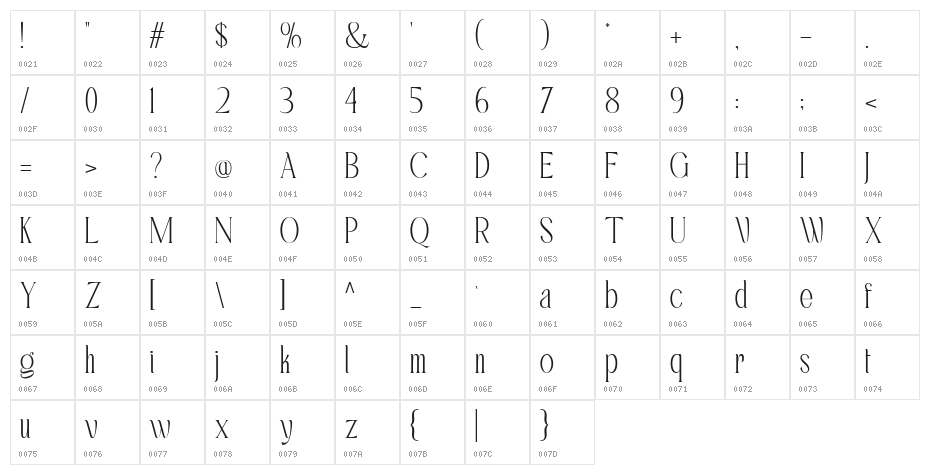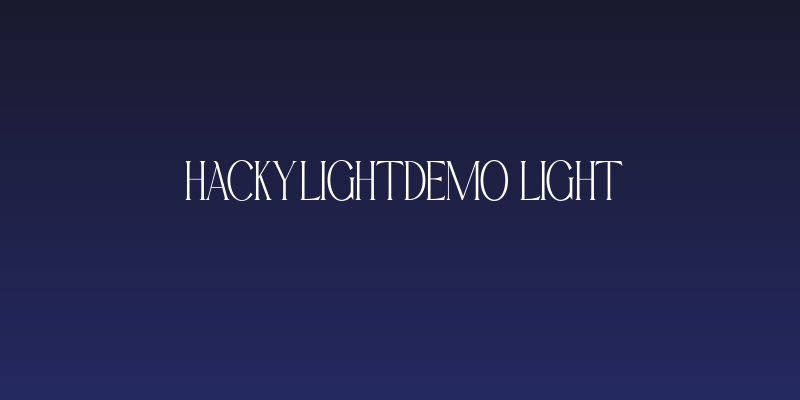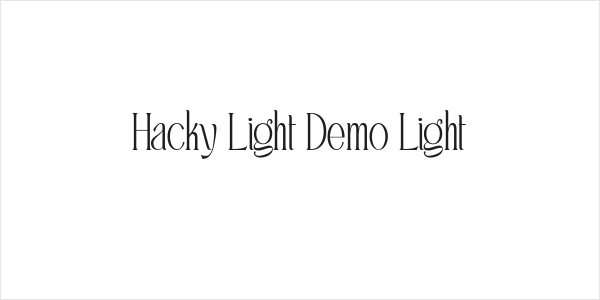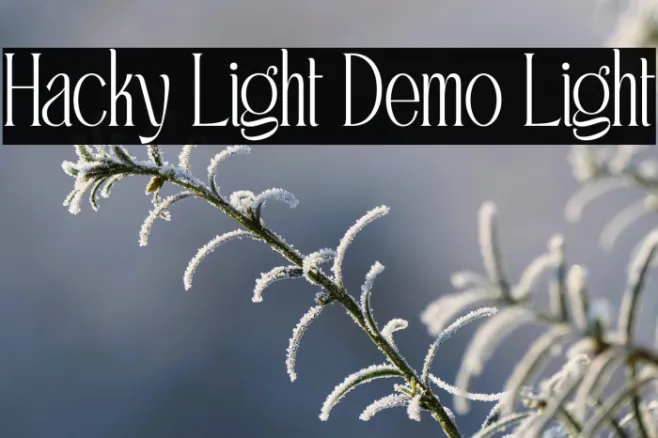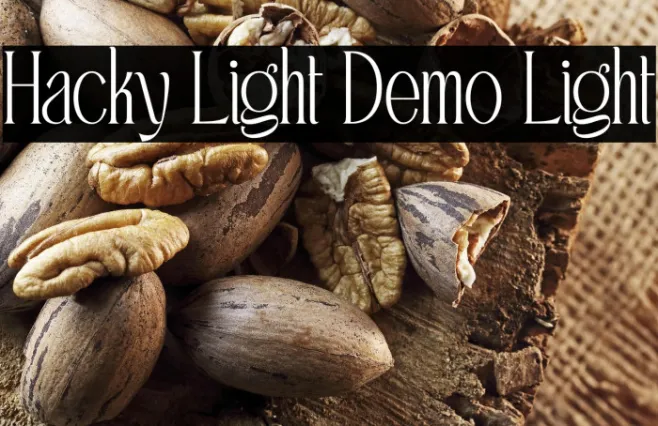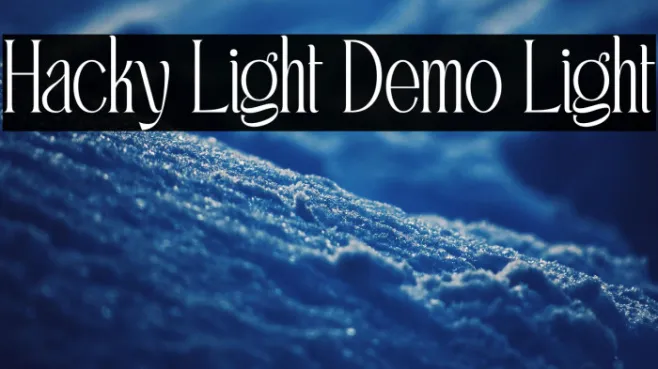
Hacky Light Demo Light Font
Hacky Light Demo Light Description
This font features a unique blend of elegance and modernity, characterized by its tall, slender letterforms and subtle curves. The uppercase letters exhibit a sophisticated flair with elongated verticals and gentle serifs, while the lowercase letters maintain a consistent flow with rounded edges and a slight slant. The numerals are clean and straightforward, complementing the overall aesthetic. Special characters are crafted with precision, adding to the font's versatility. The design is both stylish and functional, making it suitable for a variety of applications.